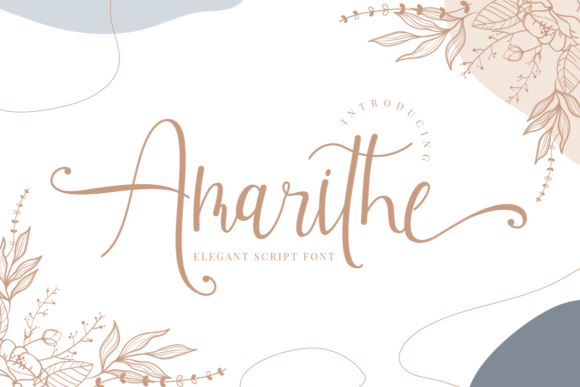
The Quest for the Perfect Font: Discovering Amarithe
I still remember the countless hours I spent searching for the ideal font for a wedding invitation project. My client wanted something elegant, modern, and eye-catching, but I was struggling to find a font that checked all the boxes. That’s when I stumbled upon Amarithe, a beautiful and modern script font that has since become a staple in my design toolkit.
What Makes Amarithe Special?
Amarithe is a stunning script font designed for a variety of creative projects, including wedding events, anniversary cards, greeting cards, logotypes, branding, and more. This font is perfect for designers, crafters, and creative hobbyists looking to add a touch of elegance and sophistication to their work.
An Honest Review of Amarithe
• ✅ Beautiful and modern script design
• ✅ Features alternate glyphs and ligatures for added versatility
• ✅ Perfect for wedding events, anniversary cards, greeting cards, and more
• ⚠️ Some users may find the font a bit too ornate for certain projects
• ⚠️ Limited availability of uppercase letters (although this can be addressed with creative workarounds)
The Story Behind Amarithe
Amarithe was designed with the intention of creating a beautiful and modern script font that would be perfect for a variety of creative projects. The designer aimed to create a font that was both elegant and stylish, with a touch of sophistication. The result is a stunning font that is sure to impress.
What is Amarithe? Amarithe is a beautiful and modern script font perfect for wedding events, anniversary cards, greeting cards, logotypes, branding, and more.
Is Amarithe PUA encoded? Yes, Amarithe is PUA encoded, making it easy to access glyphs and swashes.
Does Amarithe feature alternate glyphs and ligatures? Yes, Amarithe features a range of alternate glyphs and ligatures, making it a versatile font for a variety of creative projects.